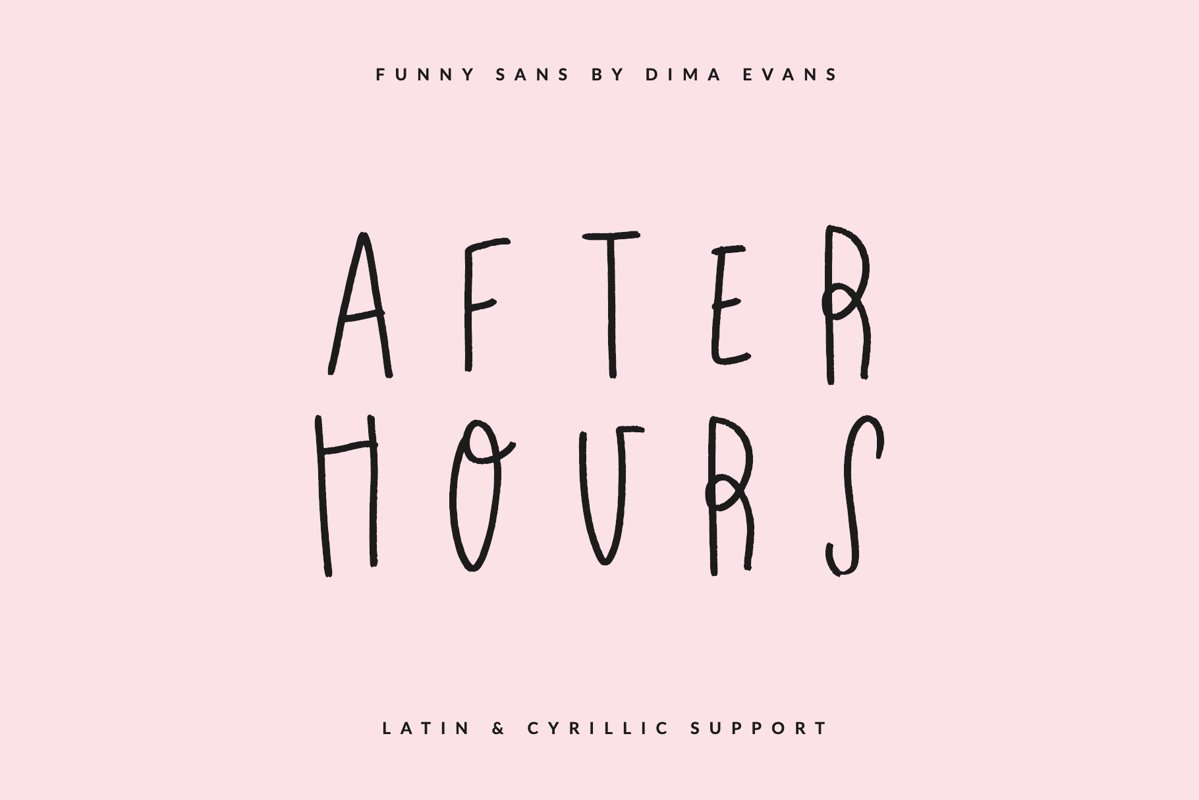
After Hours handwritten Cyrillic Sans
AfterHours
After Hours is a cute handwritten font with Cyrillic support. It is perfect for branding, wedding invitations, menu design, YouTube covers and many more
After Hours - это симпатичный рукописный шрифт с поддержкой кириллицы. Он идеально подходит для брендинга, свадебных приглашений, дизайна меню, обложек YouTube и многого другого
• Support ALL European Languages